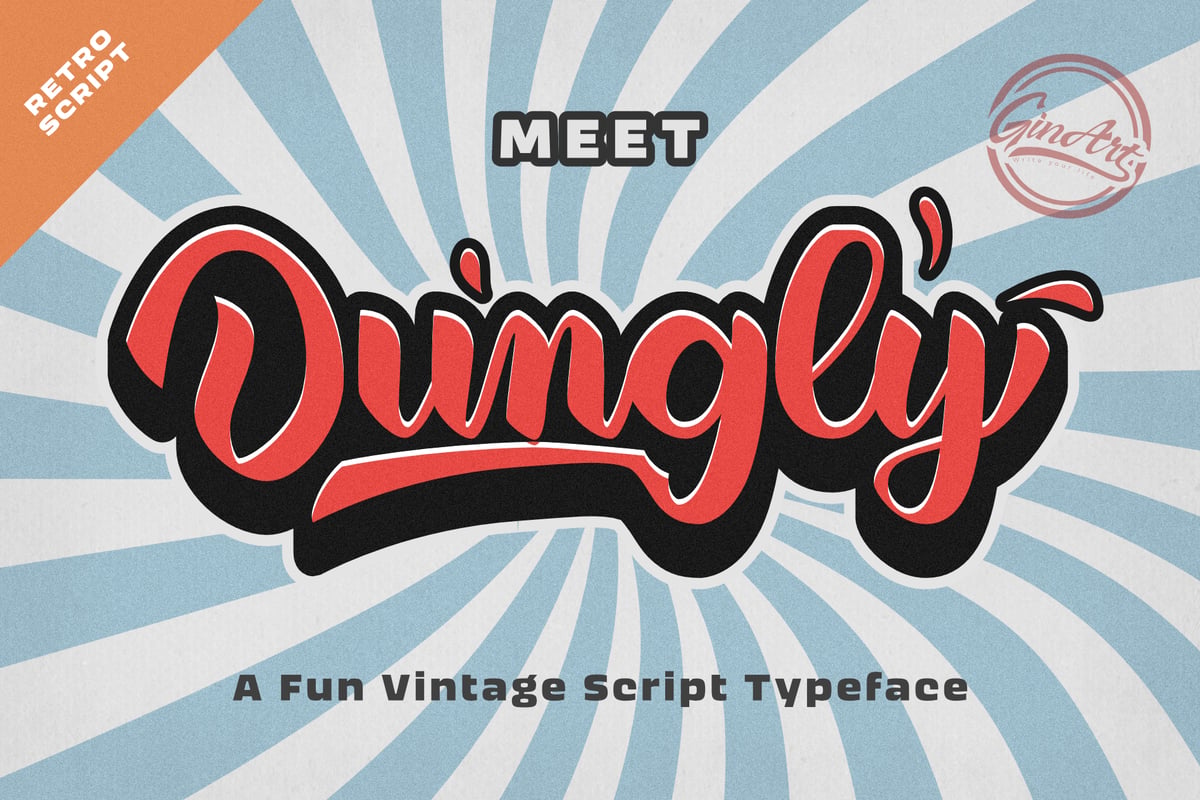
Dungly – Fun Vintage Script Typeface
Dungly is the bold, chunky vintage script font that makes every design look like a retro classic.
With expressive letterforms and a playful personality, Dungly brings retro-inspired energy to a wide range of creative projects. Its thick, eye-catching style commands attention whether it's used large on a poster or tight on a label.
Dungly is a great fit for:
- Logos and branding
- Apparel and merchandise
- Food and beverage packaging
- Posters and signage
- Any fun, vintage-themed creative project
The typeface also includes alternate characters, giving you extra flexibility to customize your lettering and keep your designs feeling fresh and unique.